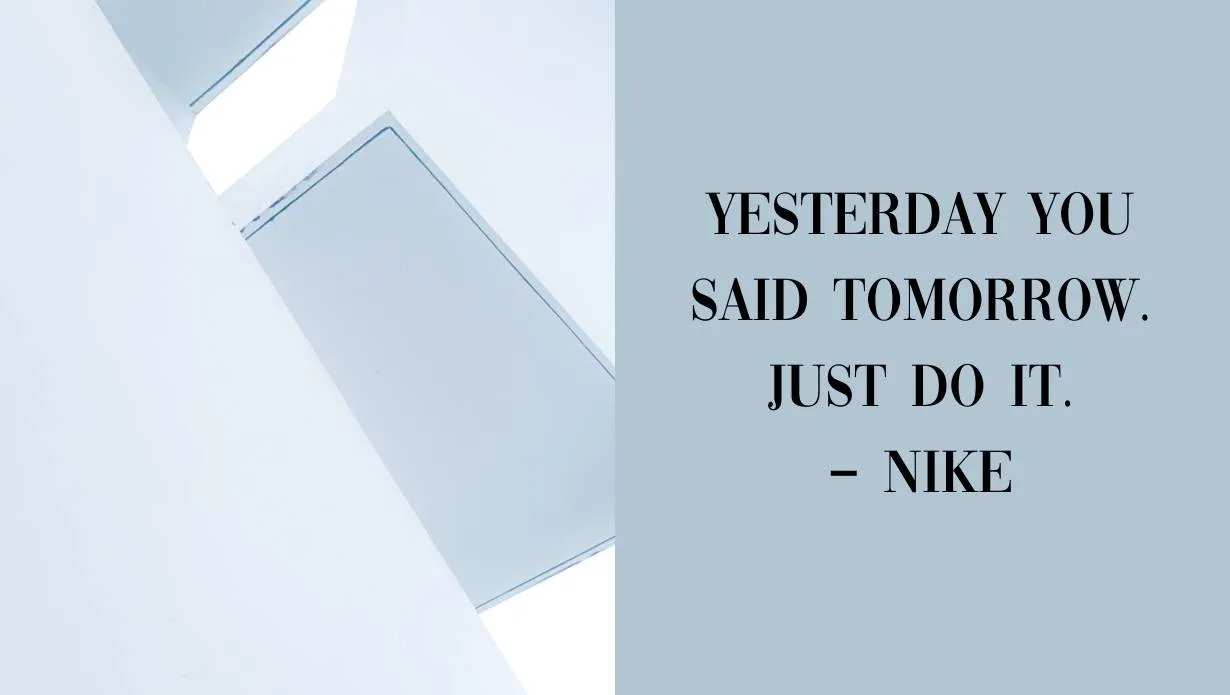
Today, we are offering the most suitable and beautiful font that has clear textures and appearance named Vogue Font. This typeface was designed by famous graphic designer Vladimir Nikolic. This typeface belongs to the Serif Font Family. The release year of this font is 2018.
| Name | Vogue Font |
| Deisgner | Vladimir Nikolic |